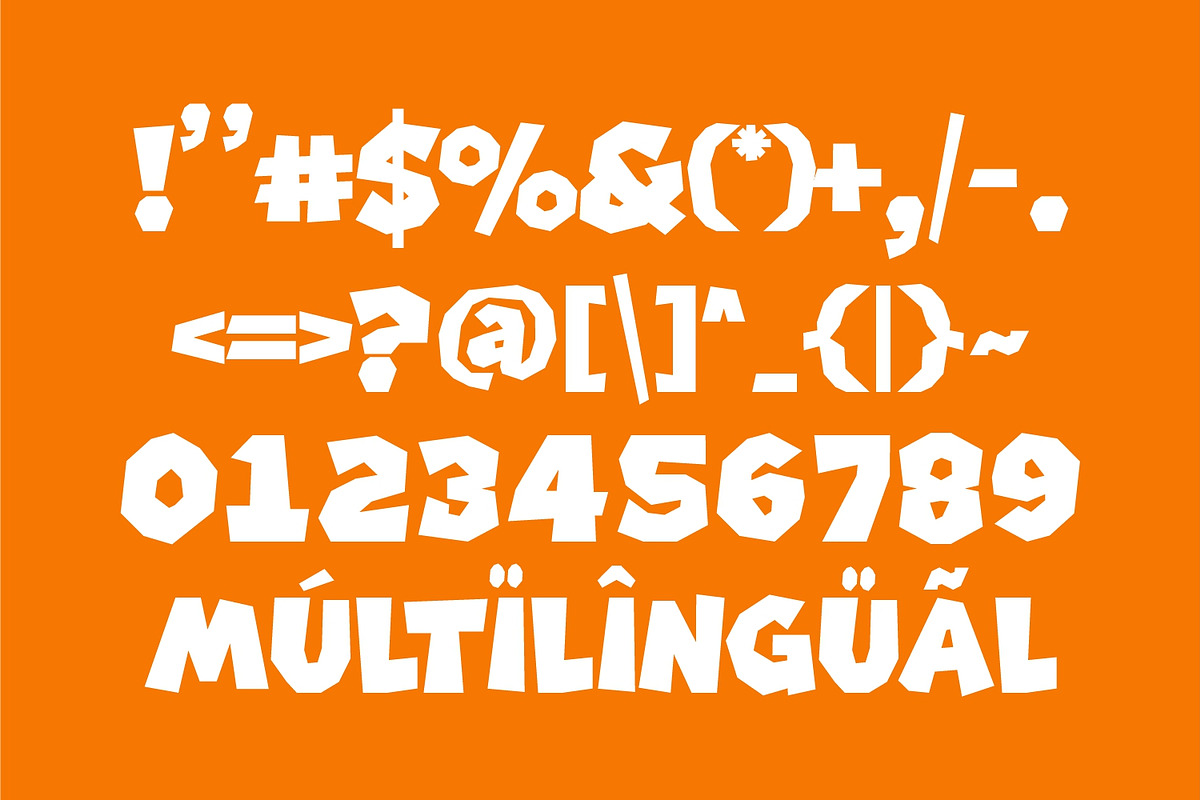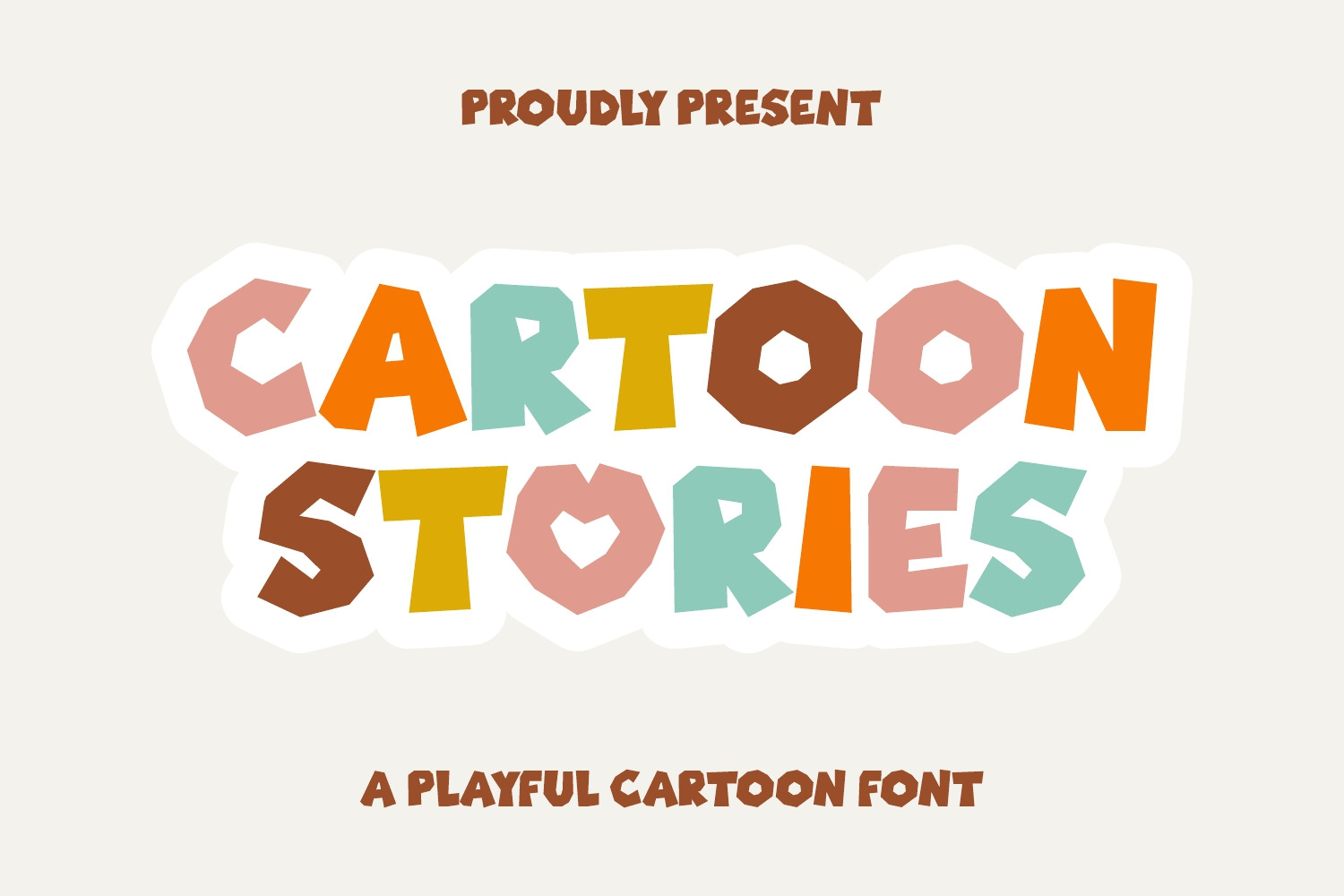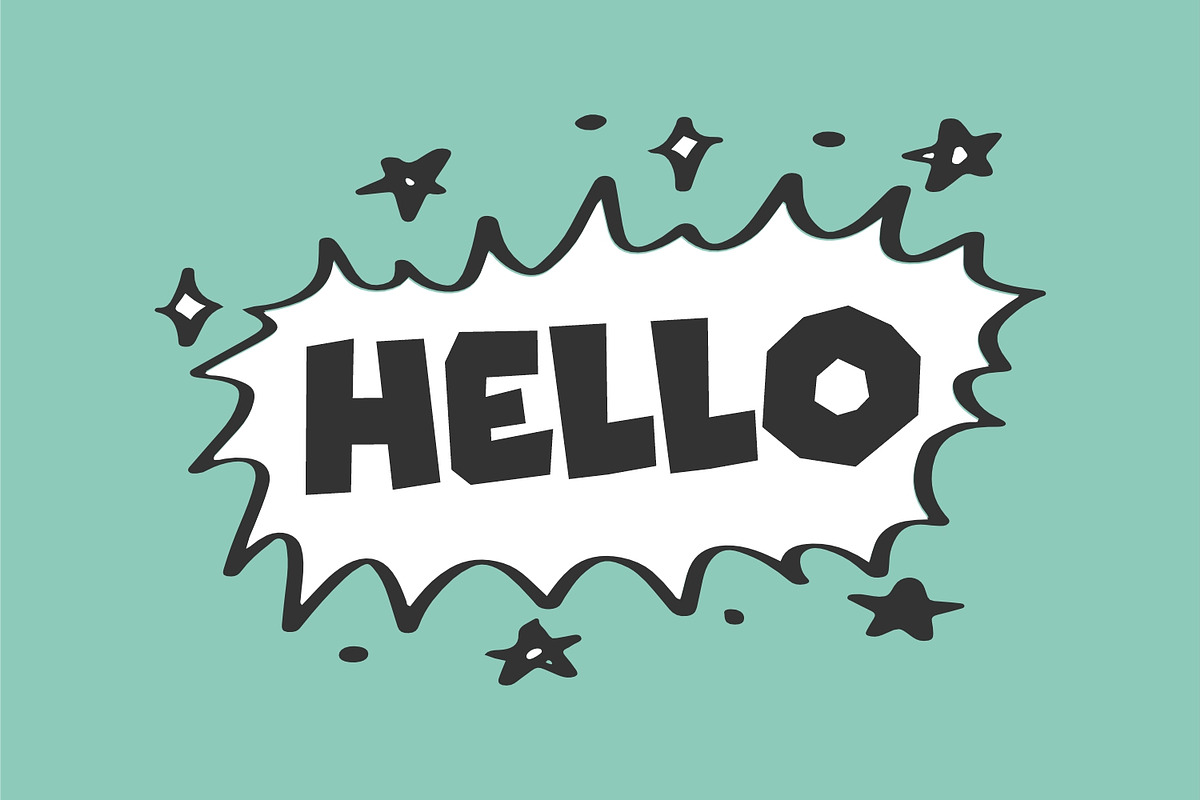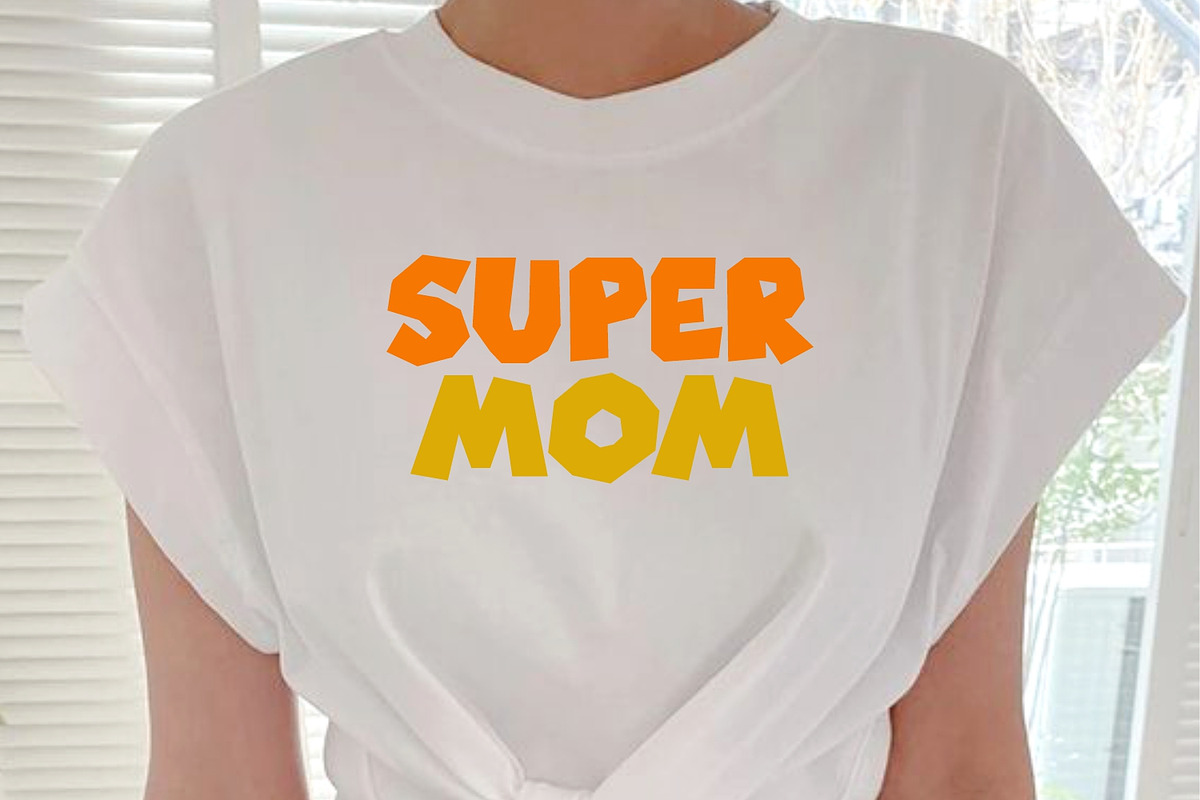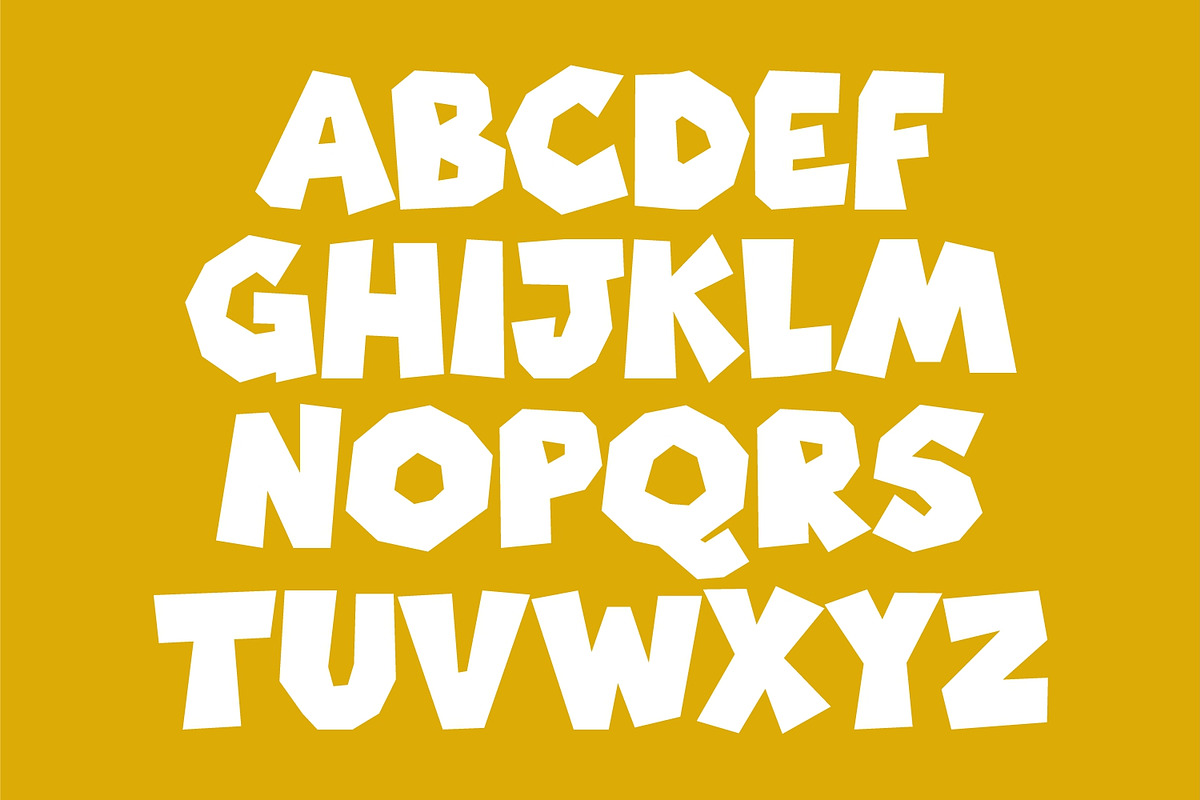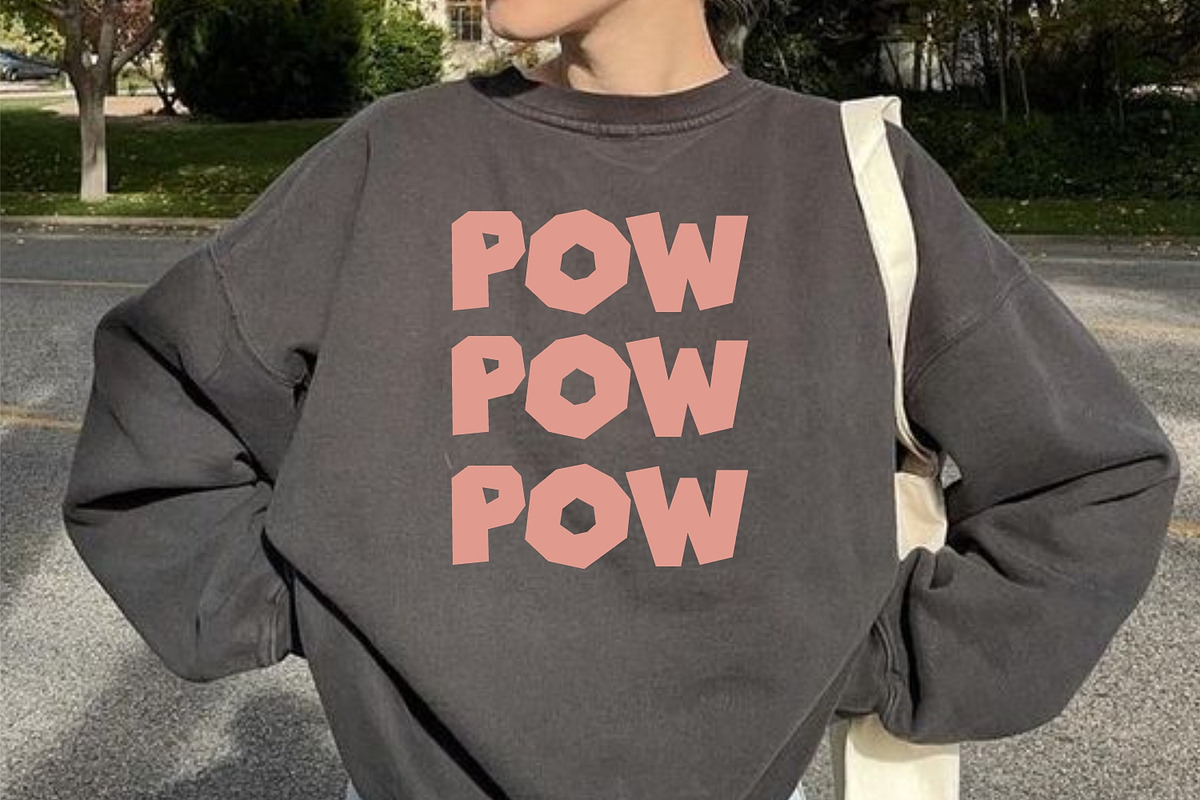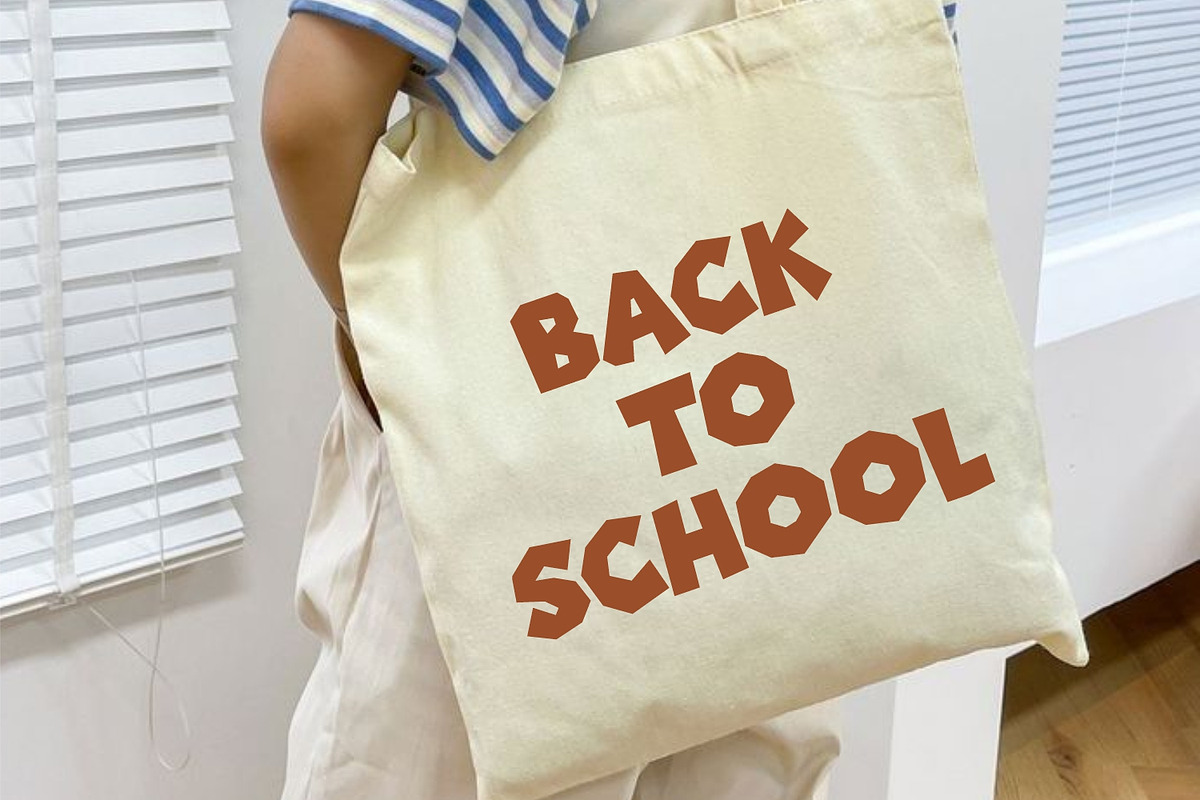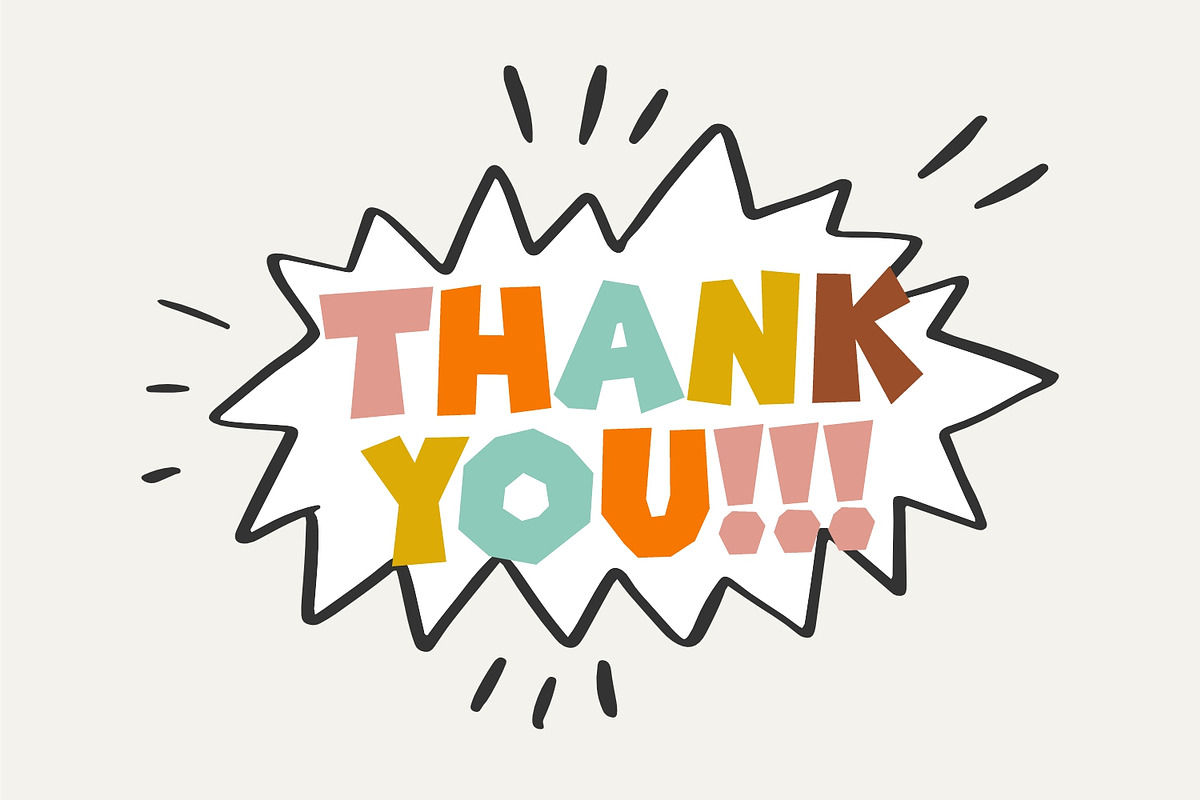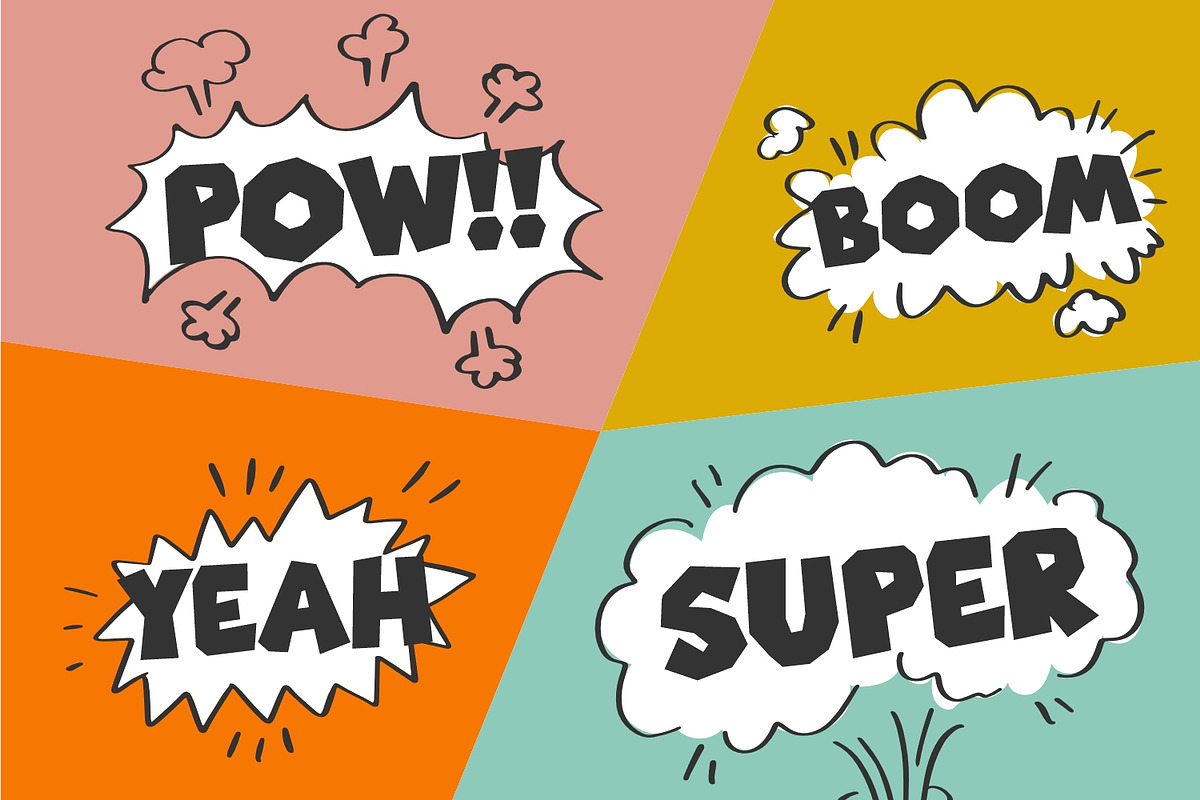
Cartoon Stories - Cartoon Font
Introducing ‘Cartoon Stories’, an audacious and playful typeface that melds charm and authenticity in each line. Celebrating a cutesy precision alongside a bracing boldness, this font is meticulously crafted for applications pertaining to children’s designs, reading materials, and educational environments. Its employment invariably augments the appeal of t-shirts, stickers, posters, and greeting cards. Splashed with colors and brimming with joy, Cartoon Stories does not merely write — it dances across the page, casting an undeniably happy impression that leaves a touch of magic and a twinkle in the reader’s eye. Your search for a typeface that encapsulates a fun-filled adventure ends here — with Cartoon Stories.